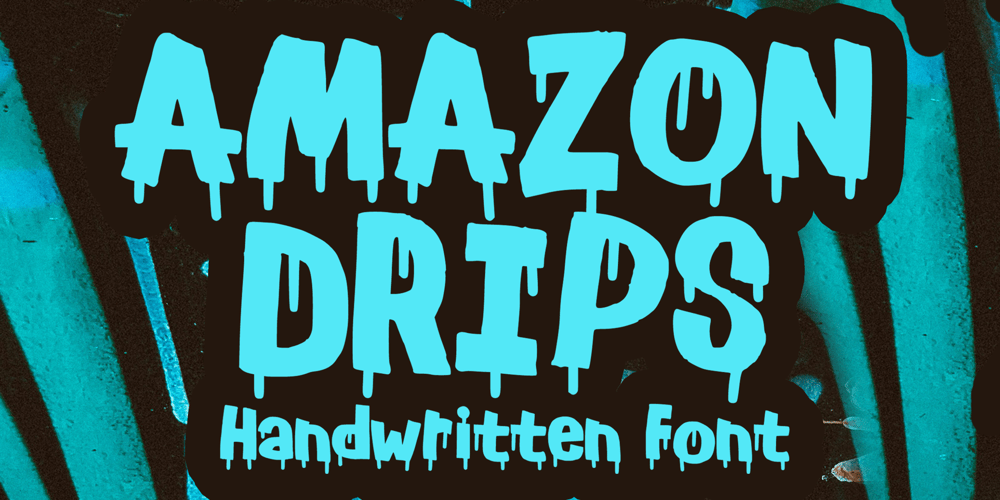
Amazon Drips
Amazon Drips font
Amazon Drips Font Family was designed by Gabriel Valentinus and published by Mvmet. Amazon Drips contains 1 styles and family package options. Amazon Drips is a cool bold painted-style display font. It will elevate a wide range of design projects to the highest level. You can use this font for many design ideas such as stickers, t-shirt designs, amazing logo designs, magazine or book covers, comics, cartoon drawings, and many more. This font will add a cool touch to your designs!